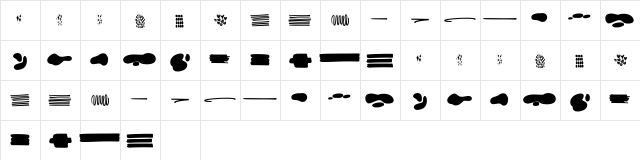
Sweet Home Extra Regular
Design Context for Sweet Home Extra Typeface
Sweet Home Extra is a composed and adaptable typeface that performs quietly and consistently across a wide range of design contexts.
Pro Tip: Pair Sweet Home Extra with a font of contrasting weight or personality to build a more expressive typographic hierarchy.